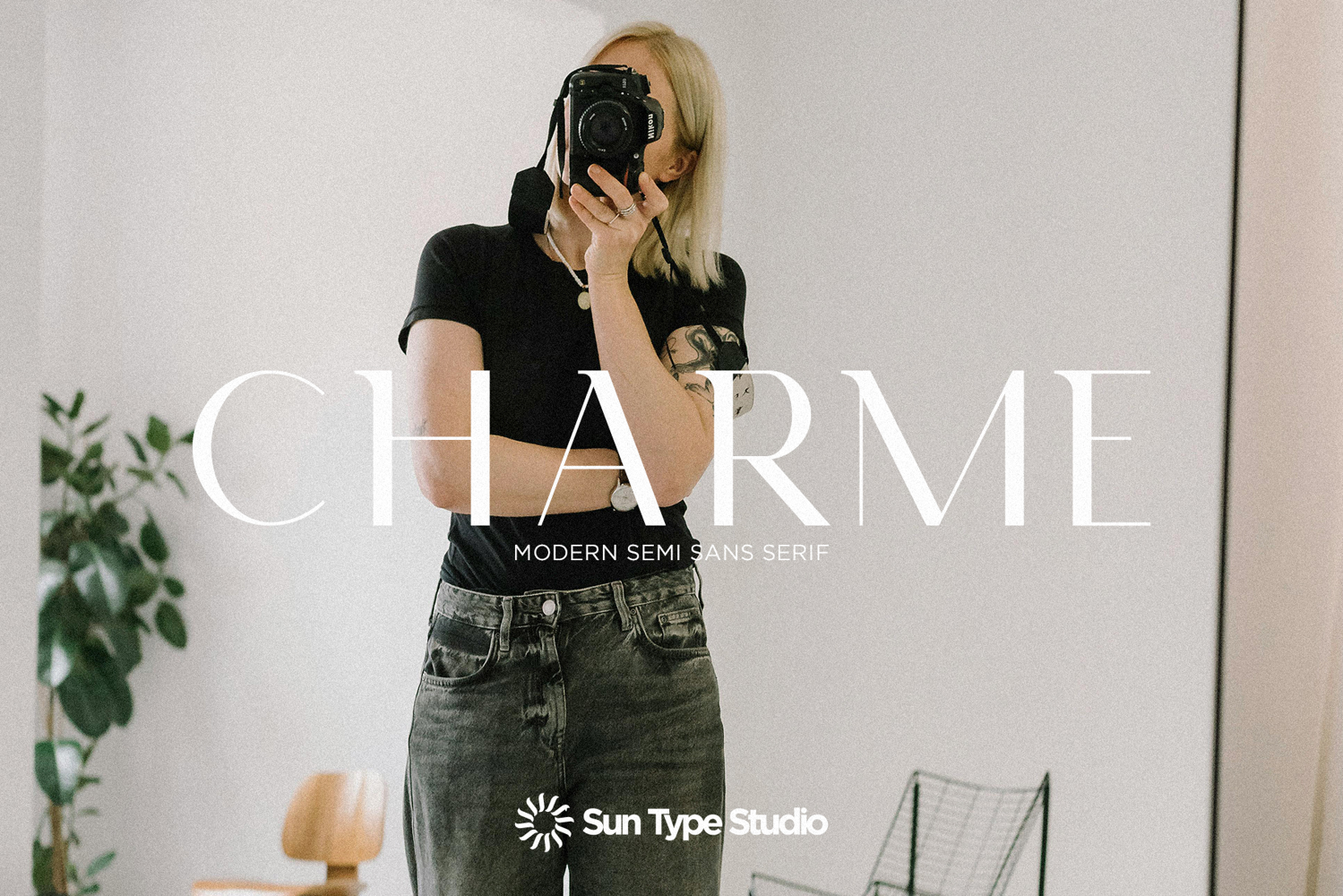
Charme - Modern Semi Serif
Charme
Charme - Modern Semi Serif is a stylish and versatile font that blends the elegance of serifs with a contemporary twist. Its refined letterforms feature subtle curves and sharp edges, making it perfect for both formal and creative designs. Ideal for branding, editorial, and digital projects, Charme offers a perfect balance of sophistication and modernity.